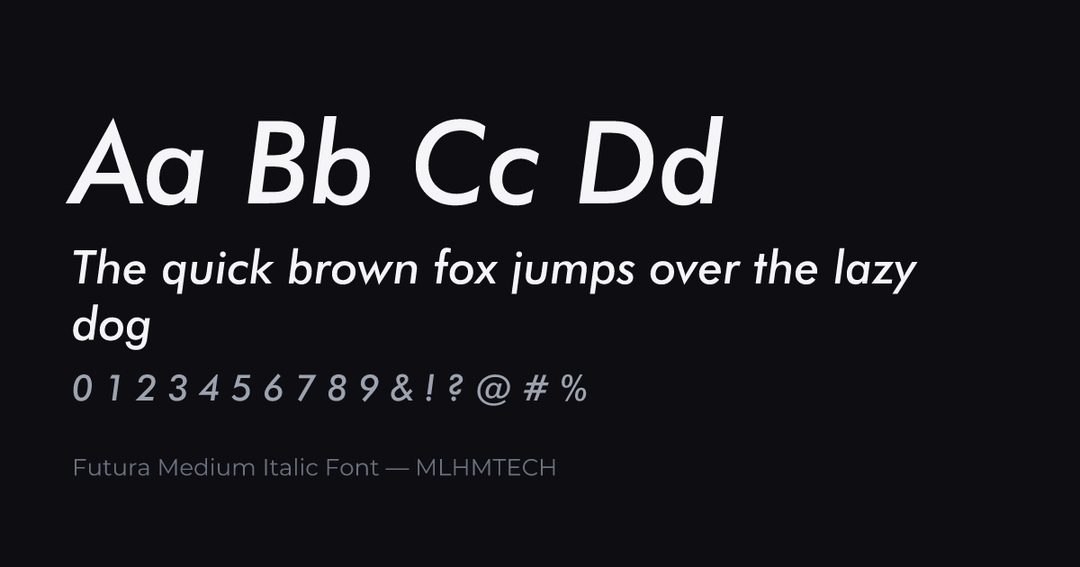
Futura Medium Italic Font
Futura Medium Italic is a classic geometric sans-serif font with a subtle slant, ideal for adding a touch of sophistication to your designs.
Futura Medium Italic is a timeless typeface that combines the geometric purity of Futura with an elegant italic slant. Its clean lines and balanced proportions make it versatile for both print and digital media.
This font is perfect for video titles, lower thirds, and graphic overlays where you need a modern yet professional look. It also works well in branding, logos, and editorial design.